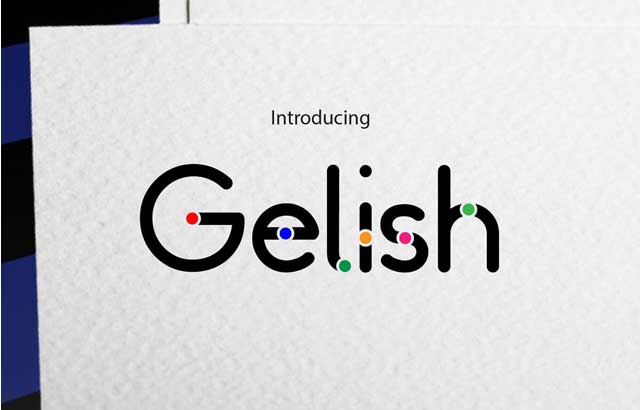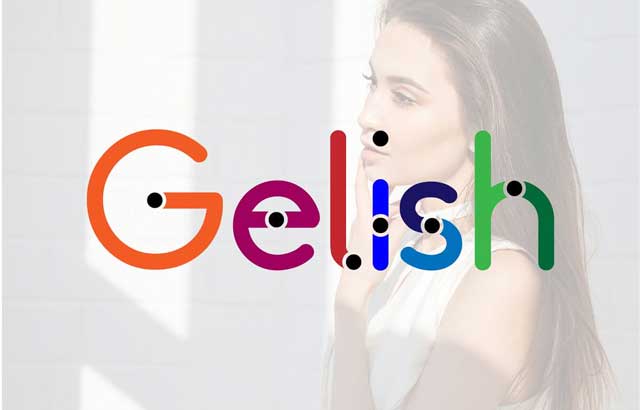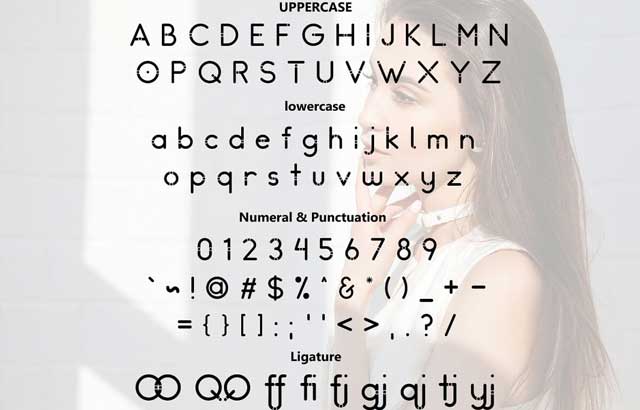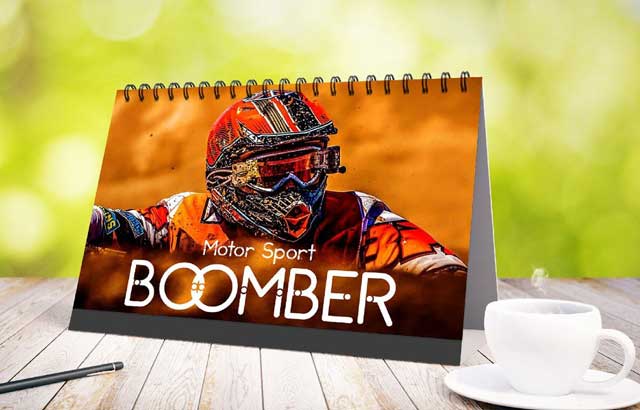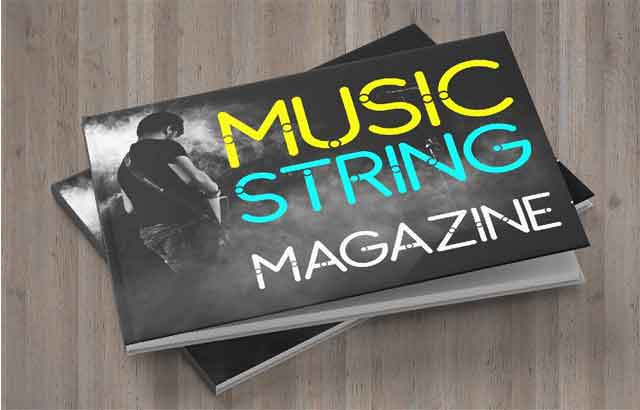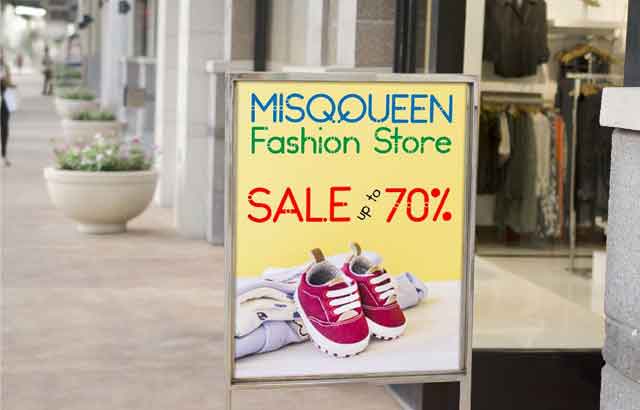
Gelish is highly legible sans serif font, Applies to the logo, slogan, or product names. Recommended for Newspaper, Magazine, Book, Web and Corporate use, etc.